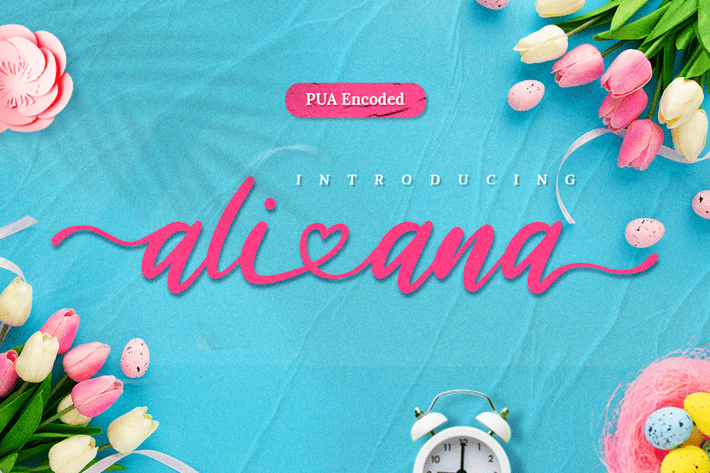
Ali Ana - Heart Lovely Font
Ali Ana Heart Font feels equally charming and elegant. It looks stunning on wedding invitations, thank you cards, quotes, greeting cards, logos, business cards and every other design which needs a handwritten touch.
Ali Ana Heart Font is PUA encoded which means you can access all of the glyphs and swashes with ease! It features a varying baseline, smooth lines, gorgeous glyphs and stunning alternates.